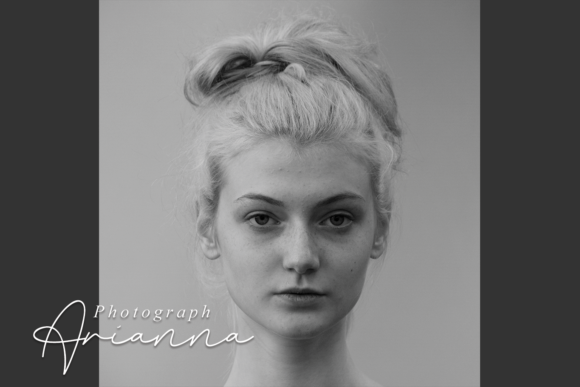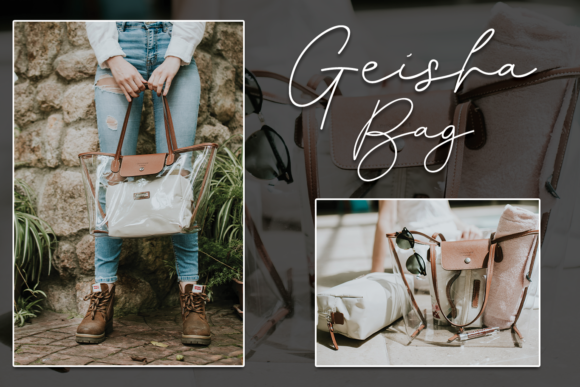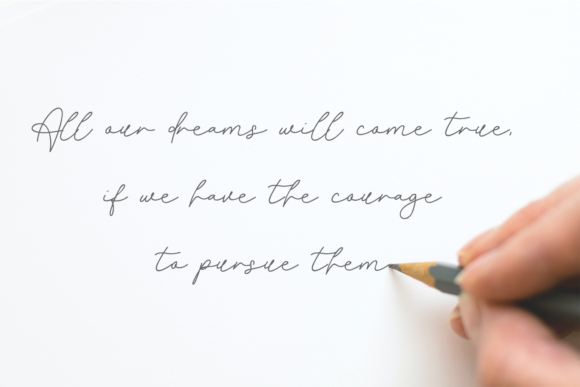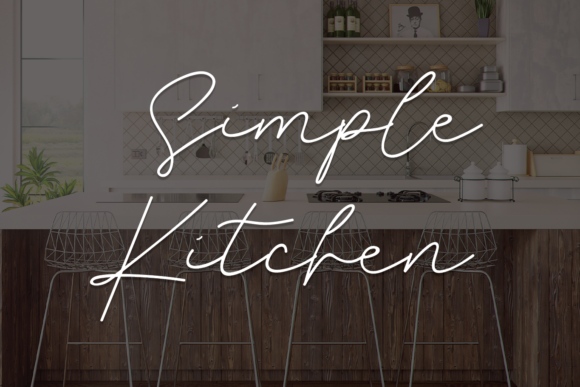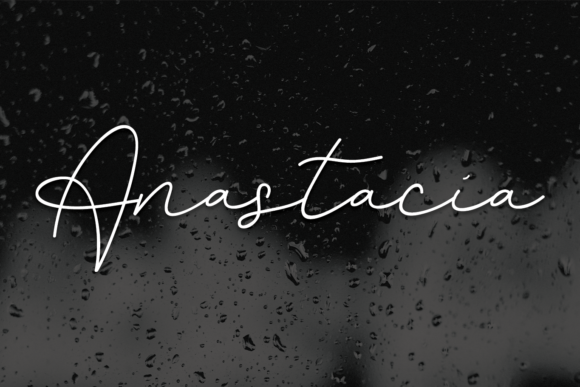
Introducing Anastacia Font: A Timeless Handwritten Masterpiece
Anastacia is an exquisite handwritten font, masterfully designed to become a true favorite among designers, crafters, and typography enthusiasts. This stunning font maintains its classy calligraphic influences while feeling contemporary and fresh, making it perfect for a wide range of creative projects.
The Art of Handwritten Typography
Handwritten fonts have always been a popular choice for designers and crafters looking to add a personal touch to their work. They offer a unique and organic feel that can elevate any project, from wedding invitations and branding materials to digital content and craft patterns. Anastacia font is no exception, boasting a beautiful, hand-crafted design that exudes elegance and sophistication.
What Makes Anastacia Font Special?
Anastacia font is a true masterpiece, carefully crafted to provide a distinctive and stylish look that sets it apart from other handwritten fonts. Here are some of its key features:
- Classy Calligraphic Influences: Anastacia font draws inspiration from traditional calligraphy, with flowing lines and delicate strokes that evoke a sense of luxury and refinement.
- Contemporary and Fresh: Despite its classic influences, Anastacia font feels modern and fresh, making it perfect for designers and crafters looking for a font that will make their work stand out.
- Highly Versatile: Anastacia font is suitable for a wide range of projects, from elegant wedding invitations and stationery to branding materials, digital content, and craft patterns.
- Easy to Read: The font’s clear and flowing design ensures that it remains highly legible, even at smaller sizes.
Uses for Anastacia Font
Anastacia font is an incredibly versatile design that can be used in a variety of creative projects, including:
- Wedding Invitations and Stationery: Add a touch of elegance to your wedding invitations, save-the-dates, and stationery with Anastacia font.
- Branding and Packaging: Use Anastacia font to create a distinctive and memorable brand identity that will set your business apart.
- Digital Content: Add a personal touch to your blog posts, social media graphics, and email newsletters with Anastacia font.
- Craft Patterns and Tutorials: Use Anastacia font to create beautiful and easy-to-follow craft patterns and tutorials.
Tips for Using Anastacia Font
To get the most out of Anastacia font, here are some tips to keep in mind:
- Pair with Complementary Fonts: Anastacia font pairs beautifully with clean and simple fonts, such as Arial or Helvetica.
- Experiment with Colors: Anastacia font looks stunning in a range of colors, from rich jewel tones to soft pastels.
- Use for Headings and Titles: Anastacia font is perfect for headings and titles, where its elegant design can really shine.
Anastacia font is a truly exquisite handwritten font that is sure to become a favorite among designers, crafters, and typography enthusiasts. Its classy calligraphic influences, combined with its contemporary and fresh feel, make it perfect for a wide range of creative projects. Whether you’re looking to add a touch of elegance to your wedding invitations, create a distinctive brand identity, or simply add a personal touch to your digital content, Anastacia font is a timeless masterpiece that is sure to impress.